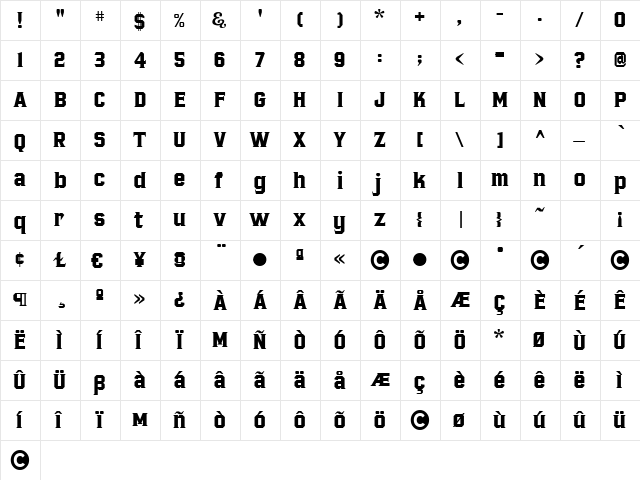
BraingeltStandard Regular Font Preview
BraingeltStandard Regular
Design Context for BraingeltStandard Typeface
BraingeltStandard takes a measured approach to typography — its balanced proportions and neutral character make it a reliable workhorse for both digital and print work.